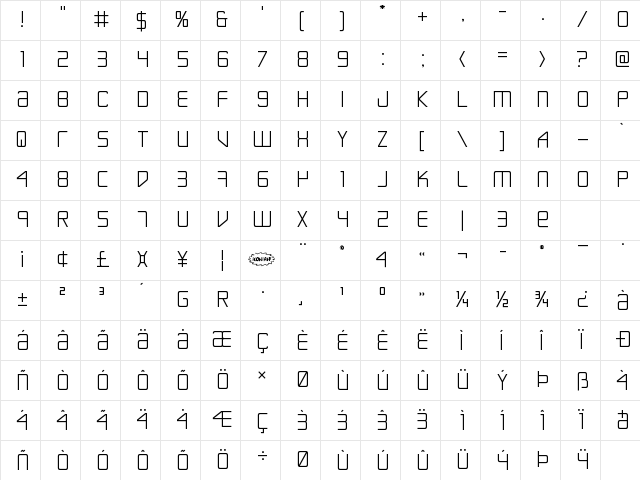
Escape Artist Ttitle Regular
Escape Artist Ttitle Family
Design Context for Escape Artist Ttitle
Escape Artist Ttitle is a composed and adaptable typeface that performs quietly and consistently across a wide range of design contexts.